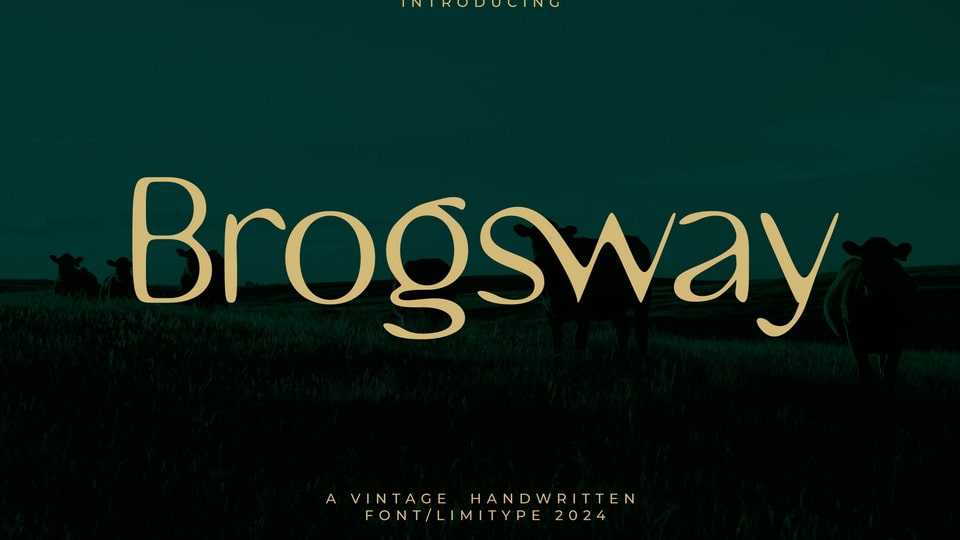
Download Brogsway font, a vintage typeface with a unique handwriting style suitable for your designs that require an elegant and luxurious touch with a minimalist impression.